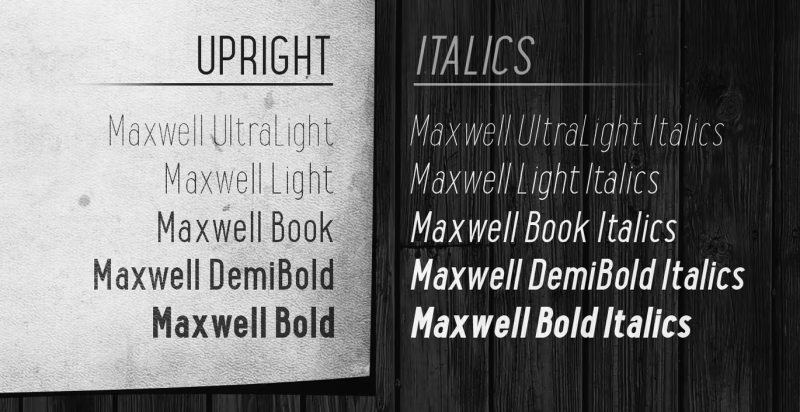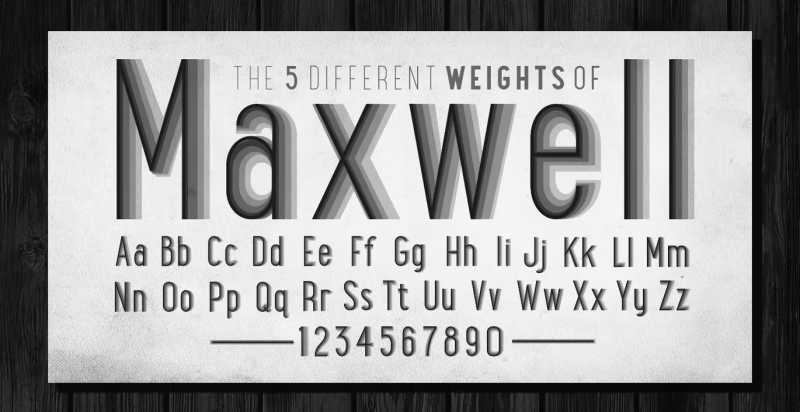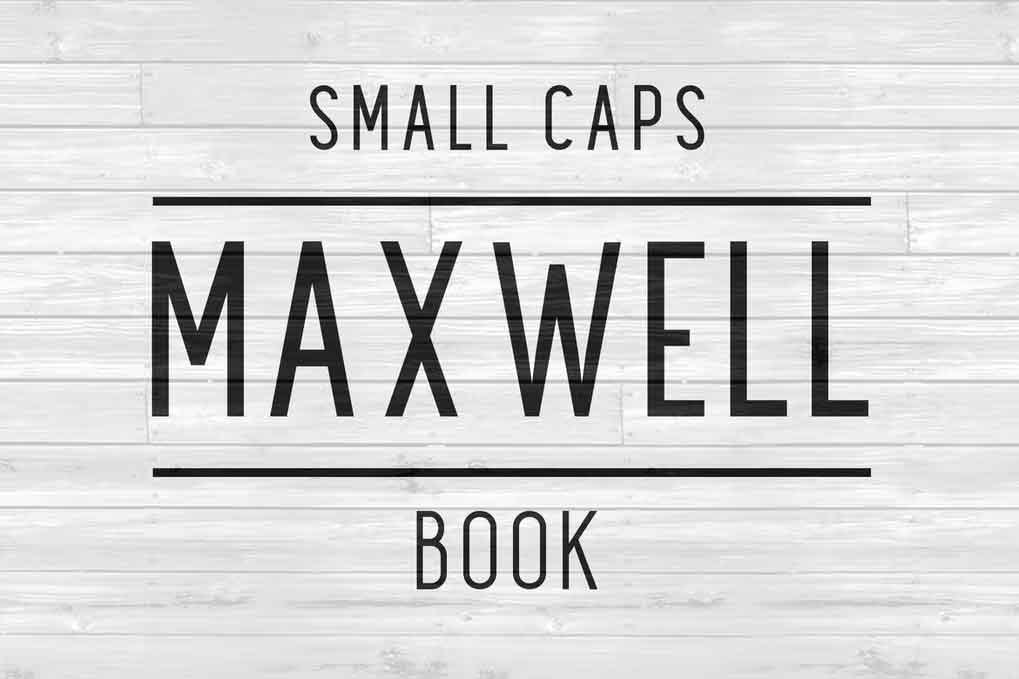
Maxwell Sans Small Caps Book Font
Maxwell is a clean condensed san serif typeface inspired by similar retro fonts from the 1950’s. It comes in regular and small caps versions, includes stylistic alternat…
Maxwell is a clean condensed san serif typeface inspired by similar retro fonts from the 1950’s. It comes in regular and small caps versions, includes stylistic alternatives and via the glyph panel you can access scientific inferiors, fractions, oldstyle numerals, Cyrillic, Greek, Latin and other Western and Central European languages. It can be used as a headline font or paragraph text.